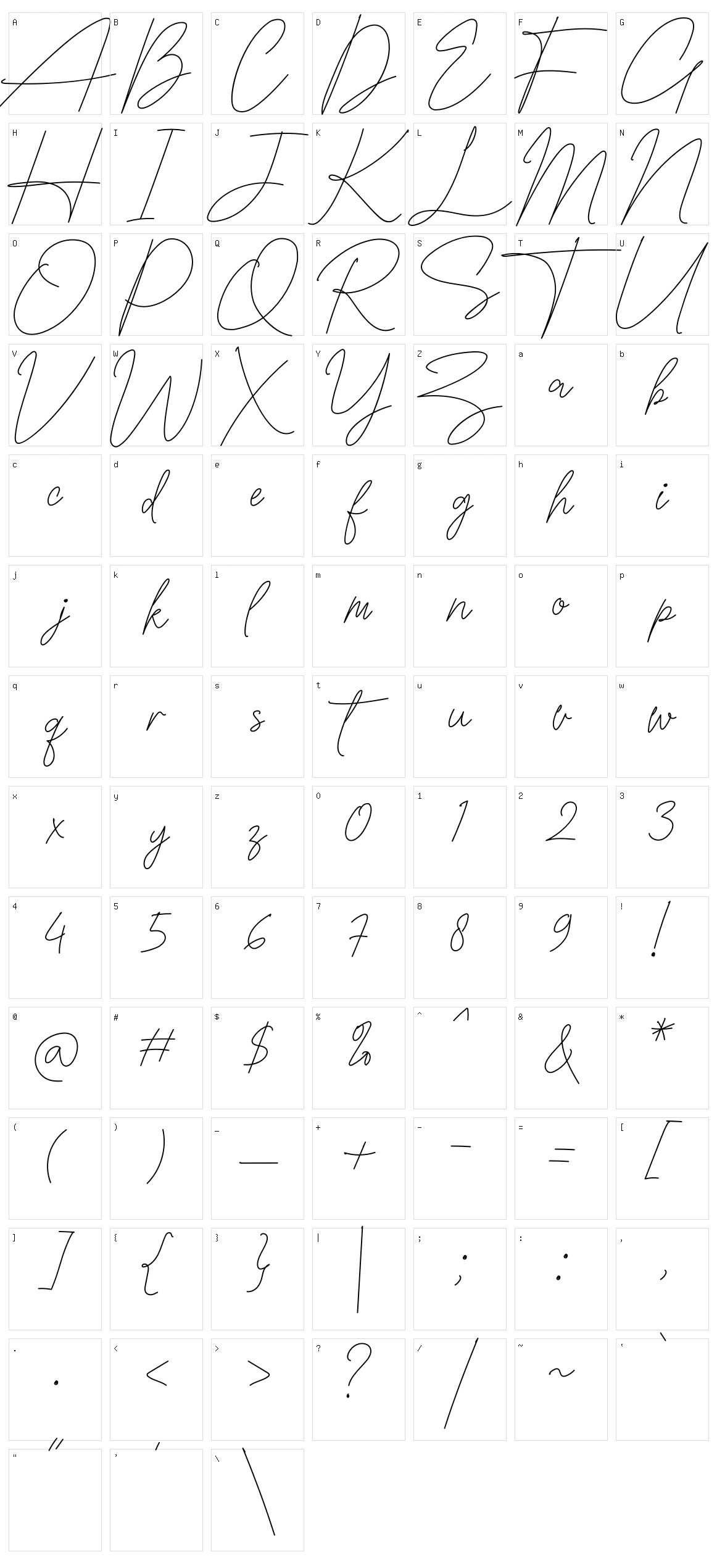
The free font South Holland is carefully designed by Faldy Kudo, showcasing a thoughtful balance of creativity and usability and falls under the Script font style. When you download the ZIP file, it contains only 64.85 KB of font files, making it lightweight and quick to download. Please review the license details below to understand permitted usage and distribution rights. If license information is not available, we recommend using this font for personal projects only or contacting the author directly for commercial usage permissions.